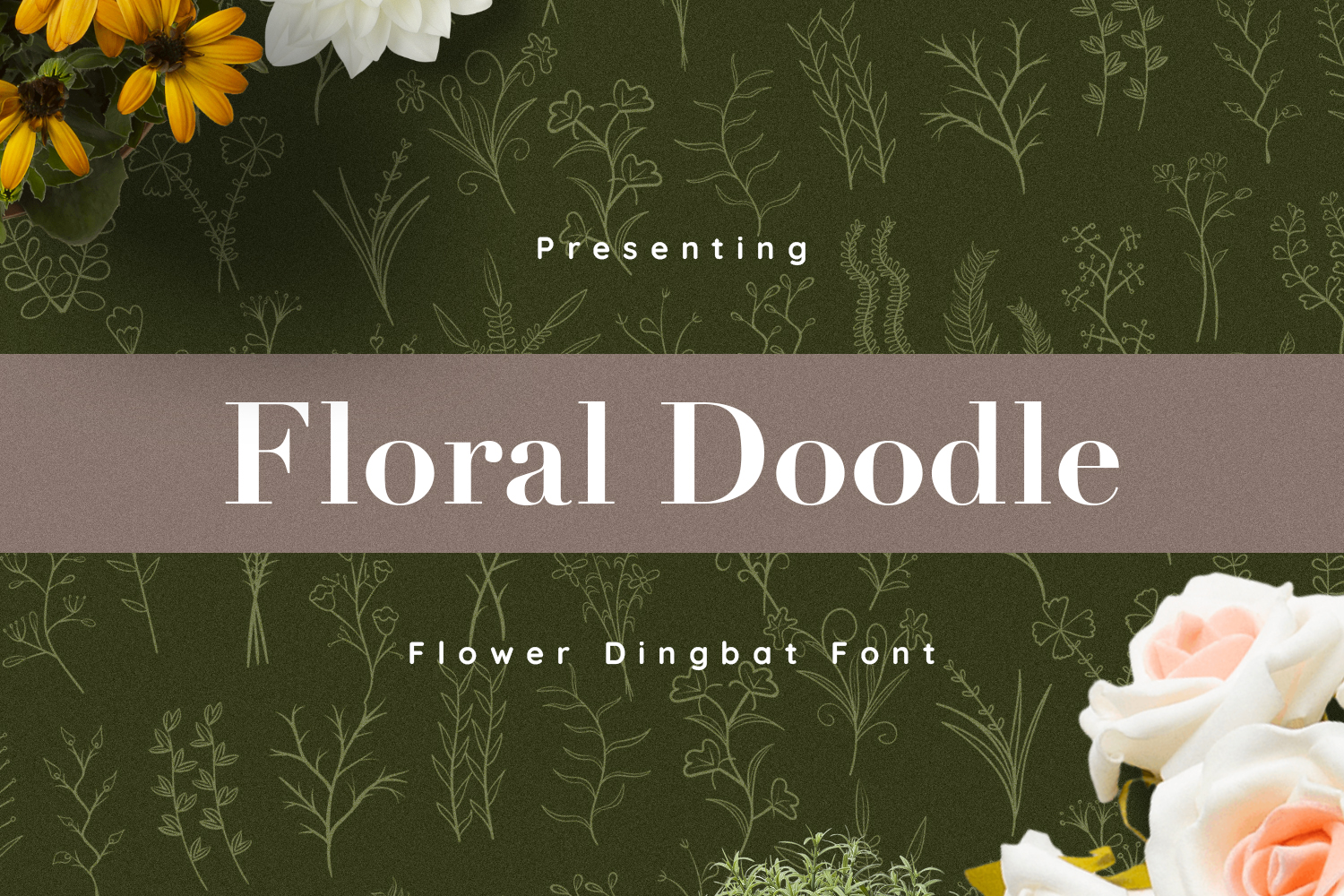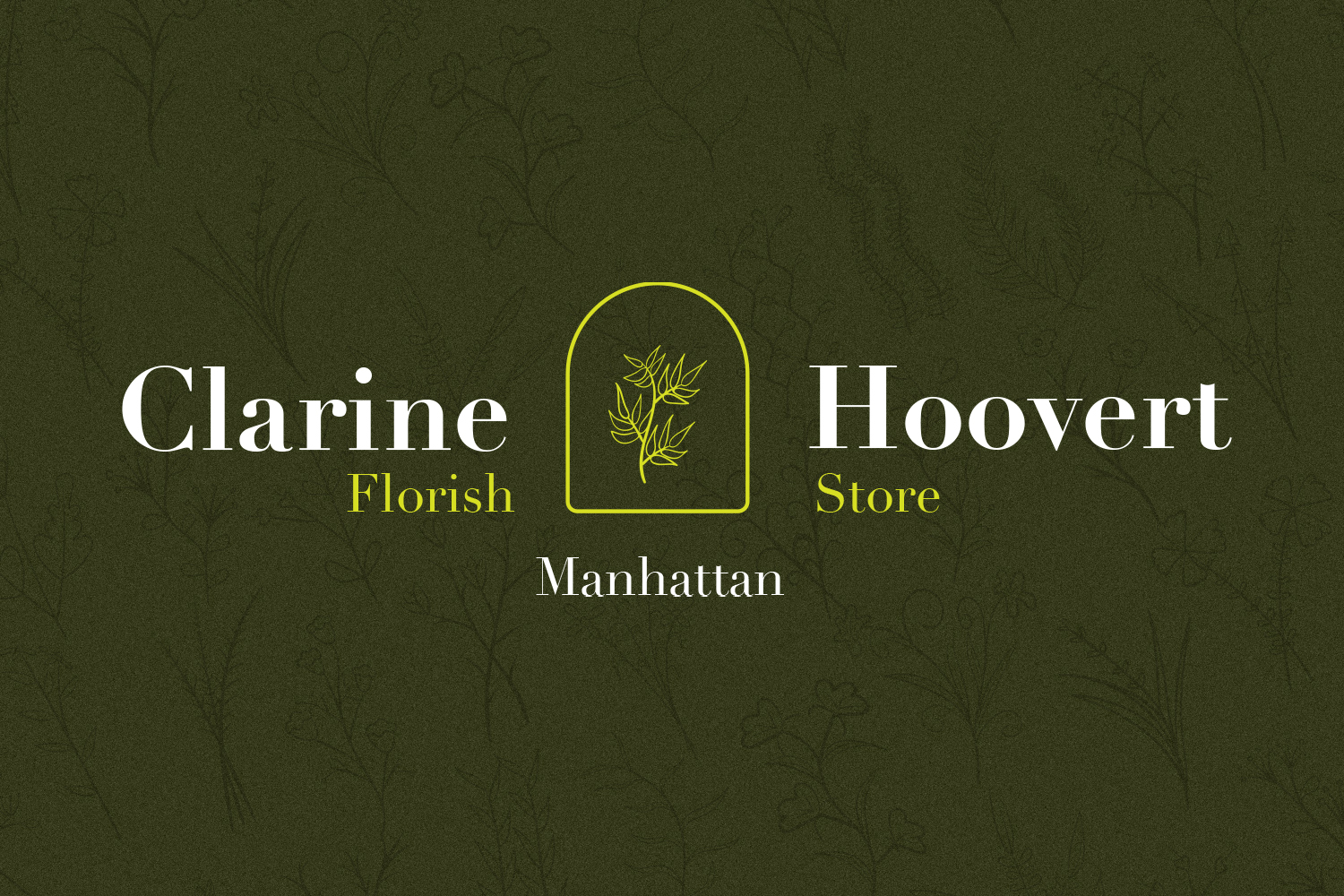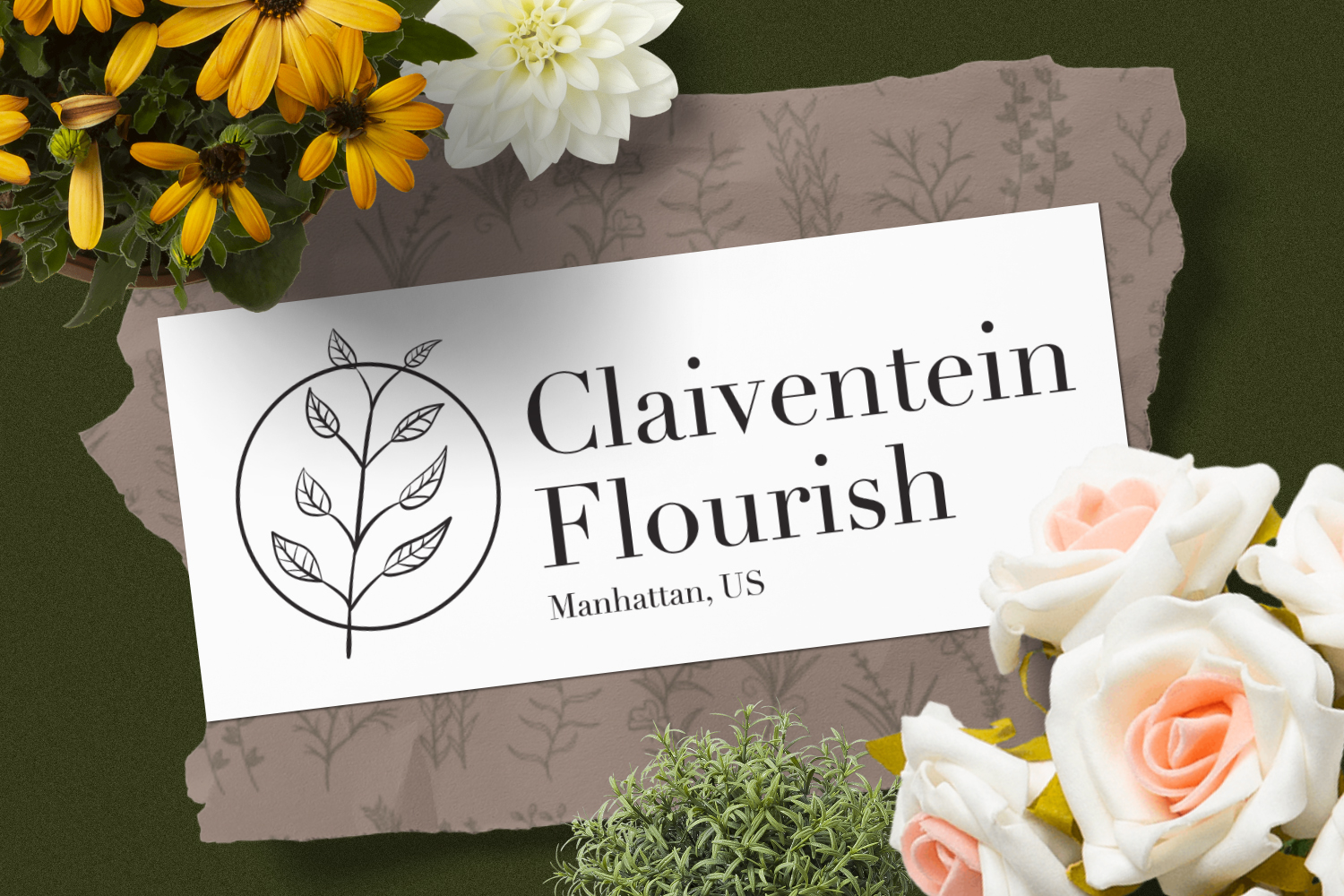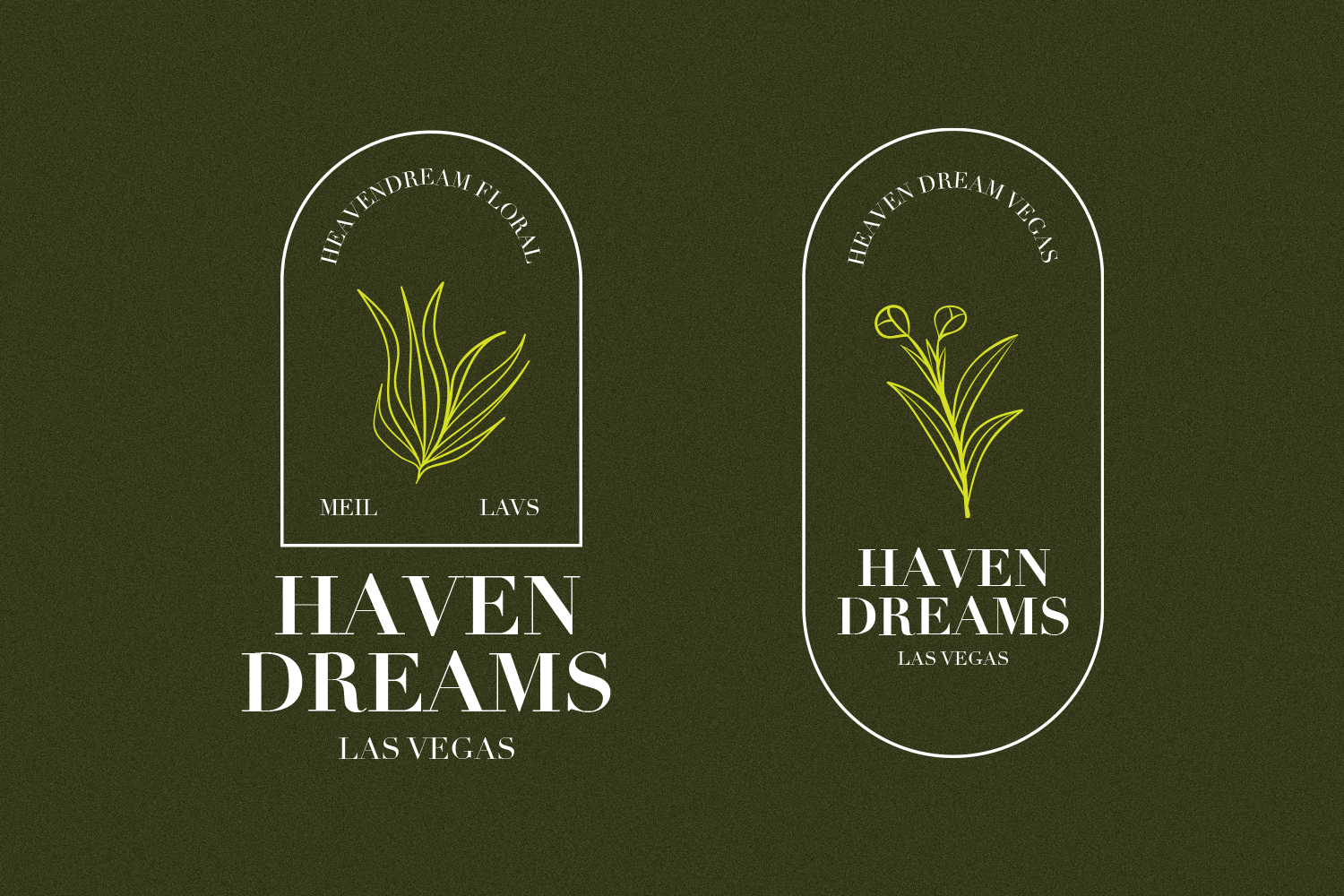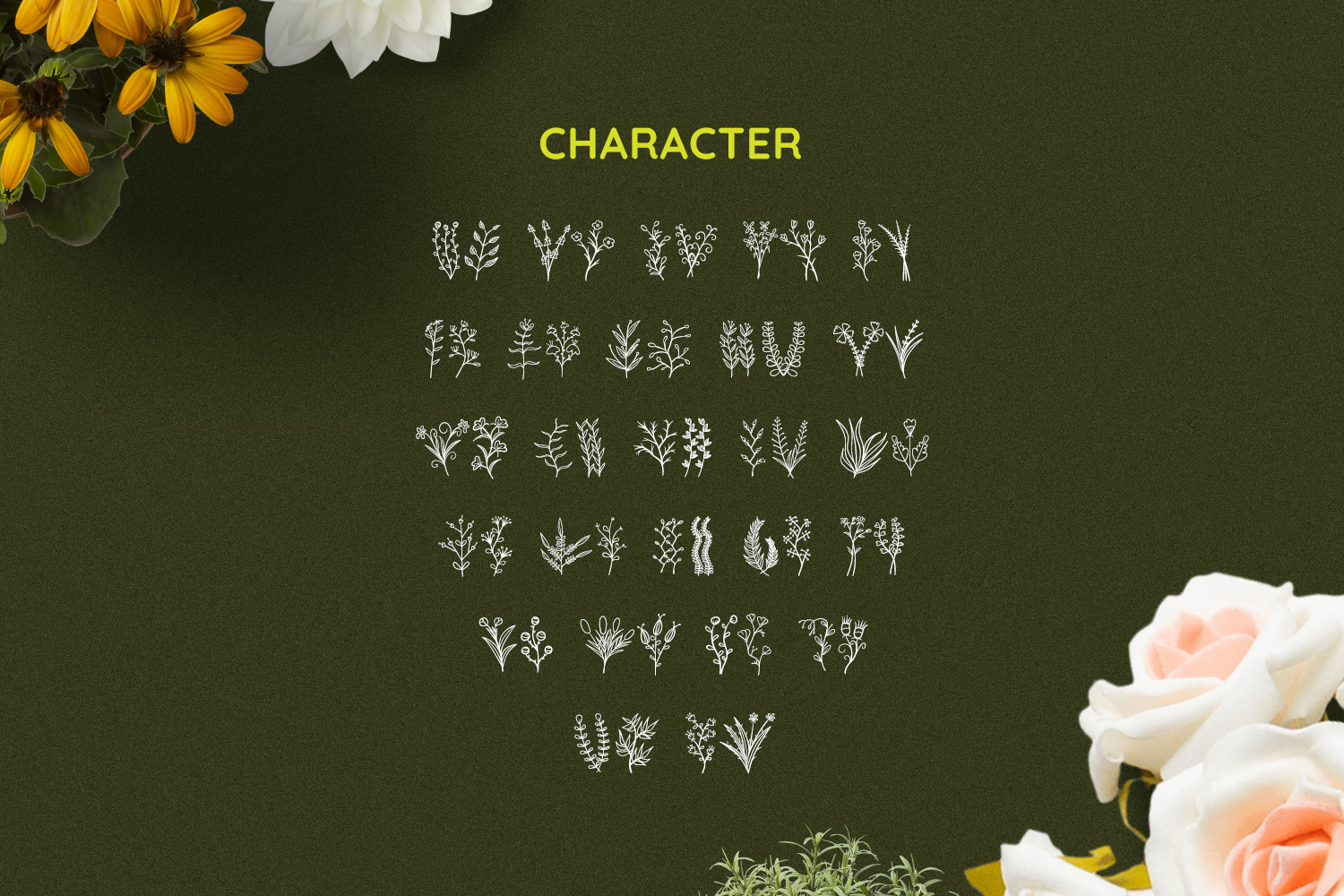
Floral Doodle is a charming flower dingbat font that brings elegance and natural beauty to your creative projects. Featuring a collection of hand-drawn floral illustrations, this font is perfect for logos, wedding designs, packaging, social media, and more. Each character is a unique floral element, crafted with delicate lines that evoke a sense of grace and organic warmth.
Whether you’re building a brand for a florist, designing botanical prints, or creating nature-inspired patterns, Floral Doodle gives you the versatility to enhance your visuals effortlessly. Its clean doodle style fits beautifully with minimalist and modern aesthetics, making it a go-to asset for designers looking to add a soft, botanical flair to their work.